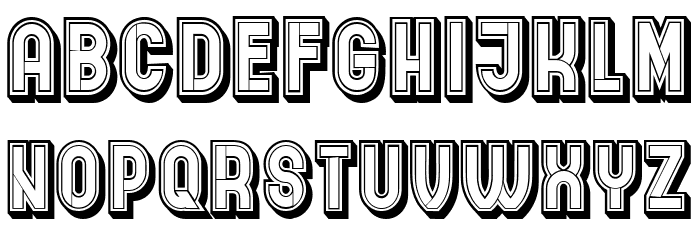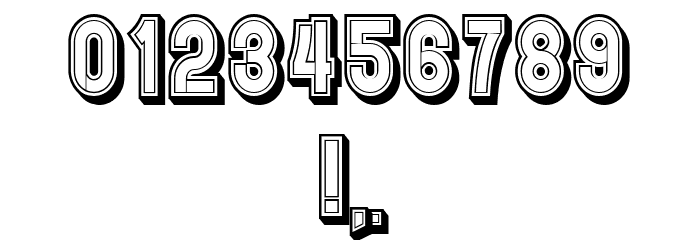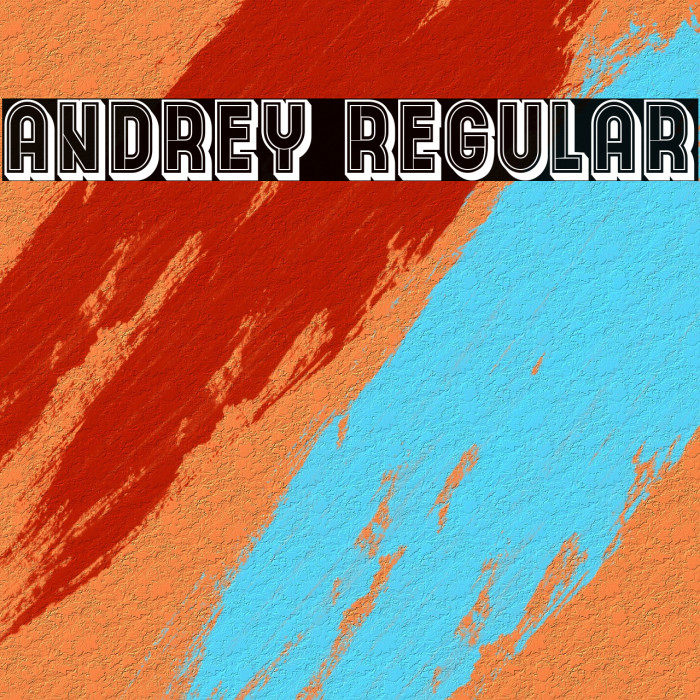
Andrey Regular Font
This font features a bold, three-dimensional design with a strong shadow effect that gives each character a striking, standout appearance. The letters are uppercase and exhibit a geometric, block-like structure with clean lines and sharp angles. The shadowing adds depth, making it ideal for creating eye-catching headlines or titles. The numbers and punctuation marks maintain the same bold style, ensuring consistency across all characters. The font's unique style is both modern and retro, making it versatile for various design applications.
A bold, 3D geometric font with strong shadow effects and a modern-retro style.
- Proposed Projects: Ideal for poster designs, branding projects, video game graphics, and any creative work requiring a bold, attention-grabbing typeface.
- Overall Style: Modern, Retro